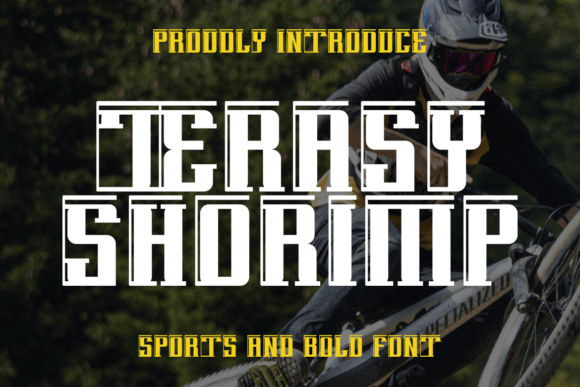
How Terasy Shorimp Can Improve Your Business Branding
As a small business owner, you juggle countless tasks, but creating a consistent and memorable visual identity is crucial for standing out. One of the most impactful yet underrated tools in your arsenal is your choice of font. When you choose Terasy Shorimp, a unique display font, you unlock a powerful asset for building a cohesive brand. Terasy Shorimp is an incredibly cool and unique display font designed to inject a magical world into your business materials.
Using Terasy Shorimp for Modern and Whimsical Brand Identity
The distinct personality of Terasy Shorimp font blends modern clarity with whimsical charm. This unique style creates a memorable brand voice that resonates deeply with customers. Imagine a café that uses this font for its logo and menu headings; the design feels both fresh and inviting. A modern yet whimsical style is perfect for businesses that want to appear friendly, creative, and trustworthy without looking generic or overly corporate.
Terasy Shorimp for Product Labels and Packaging Design
Terasy Shorimp shines as a premium display font on physical products. Its unique character ensures your handmade candles, artisan food jars, or beauty product boxes look professional and distinctive. Using this font for your main product name or key label text makes your item instantly recognizable on a shelf or in an online shop photo. The visual appeal of Terasy Shorimp immerses customers into your brand’s magical world before they even read the details.
Terasy Shorimp for Social Media Graphics and Website Headers
In the digital space, consistency is key. Terasy Shorimp fonts can be your go-to choice for creating eye-catching Instagram post titles, Pinterest graphic headlines, and website banner text. Its modern yet whimsical style ensures your content looks cohesive across all platforms. This uniformity makes your business look more organized and professional, encouraging followers to trust and engage with your brand.
Terasy Shorimp for Creating Consistent Marketing Materials
From business cards to flyers, every customer touchpoint should feel like part of the same story. Terasy Shorimp provides that narrative thread. Using this display font across your printed and digital materials reinforces your brand identity. A boutique owner, for instance, could use Terasy Shorimp on thank-you cards, stickers, and promotional flyers, creating a seamless experience that customers remember and associate with quality.
When to Use Terasy Shorimp as Your Primary Display Font
Terasy Shorimp is best used for headlines, logos, and accent text where you want to capture attention and convey personality. Its design is meant for display, not for long paragraphs. For body text on your website or detailed product descriptions, pair Terasy Shorimp with a clean sans-serif or a readable serif font. This classic font pairing strategy ensures your designs are both beautiful and functional, maintaining readability on mobile screens and small printed labels.
Testing Terasy Shorimp Before a Full Brand Rollout
Before committing this unique font to your entire brand, conduct practical tests. Create a mock-up of a product label, a social media post, and a section of your website header using Terasy Shorimp. Assess its readability in different sizes and on various backgrounds. Does it still feel modern and whimsical on a small sticker? Does it look clear as a thumbnail on a phone? This real-world testing ensures the font works across all your intended applications.
Practical Font Pairing Ideas with Terasy Shorimp
To maximize the impact of Terasy Shorimp, combine it with complementary typefaces. For a clean, balanced look, pair this expressive display font with a simple sans-serif font for all your body text and supporting information. For a more classic or elegant feel, a traditional serif font can work well. The goal is to let Terasy Shorimp be the star for your key brand elements while ensuring all other text is easy to read for customers.
Terasy Shorimp for Specialty Businesses and Creative Industries
The magical world evoked by Terasy Shorimp is particularly suited for niche businesses. A children’s toy store, a fantasy-themed bookstore, a whimsical bakery, or a creative coaching service can all leverage this font to visually communicate their unique offering. It helps align your brand’s mood with your target customers’ expectations, making your business feel more authentic and trustworthy.
Ultimately, choosing a font like Terasy Shorimp is more than a design decision; it’s a branding strategy. This unique display font offers a blend of modern professionalism and whimsical charm that can transform your business materials from ordinary to memorable. By applying it consistently to your logos, packaging, social media, and website, you build a visual identity that customers recognize and trust. Terasy Shorimp helps your small business project consistency, quality, and a distinct personality across every real-world touchpoint.